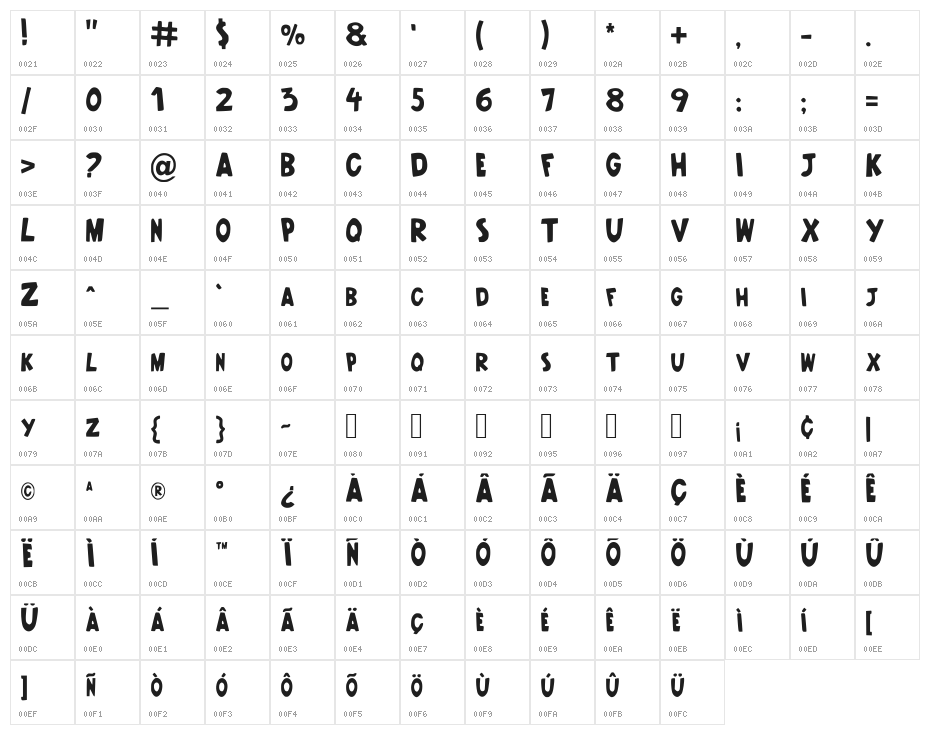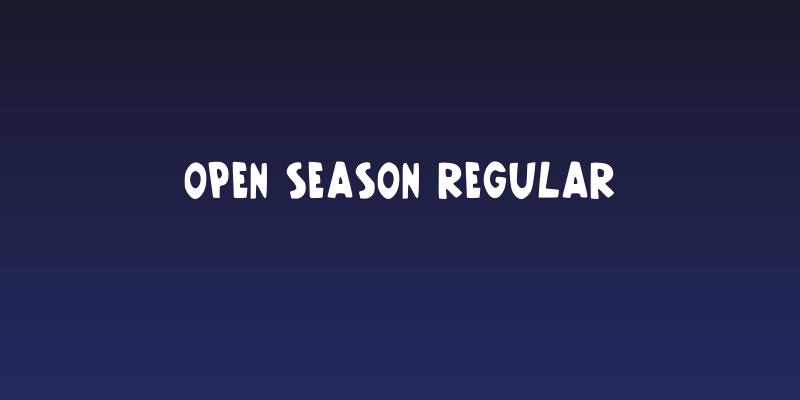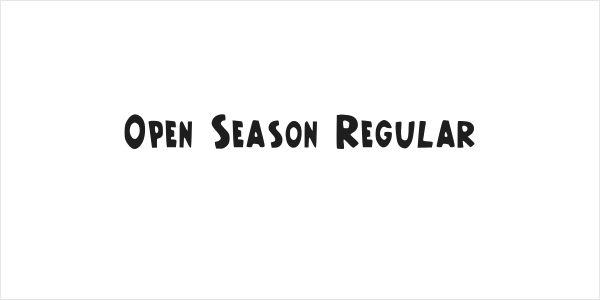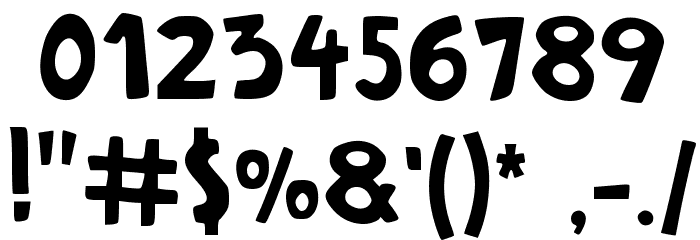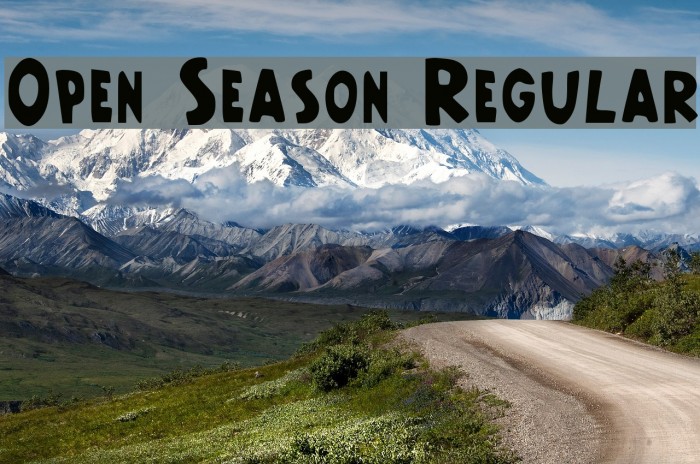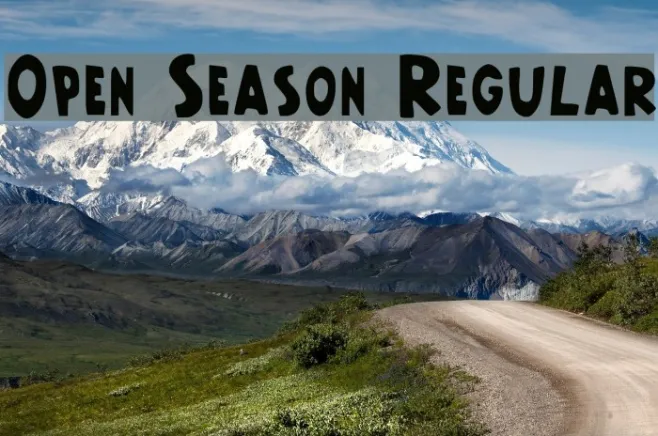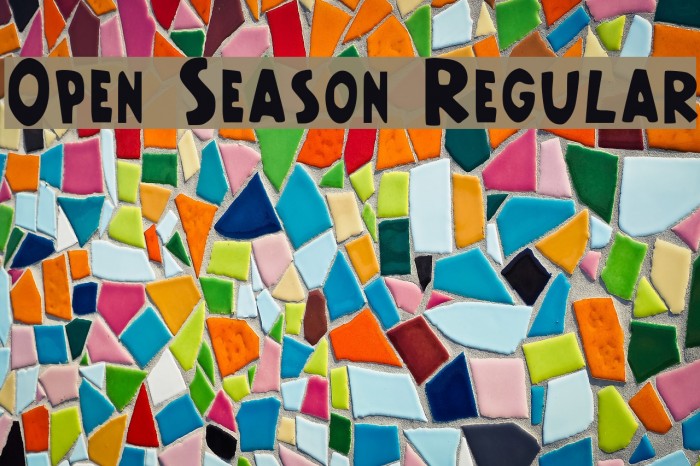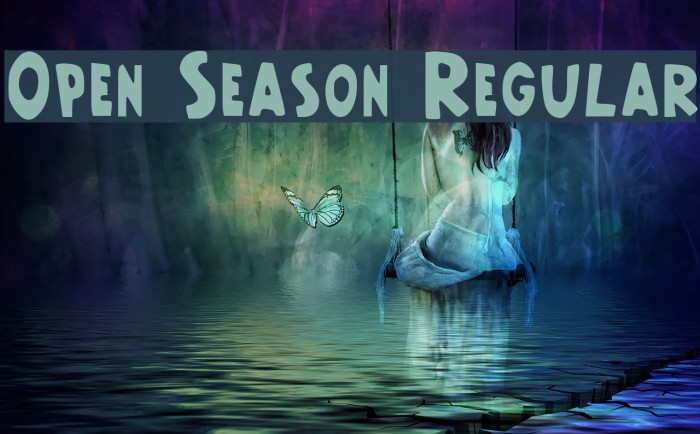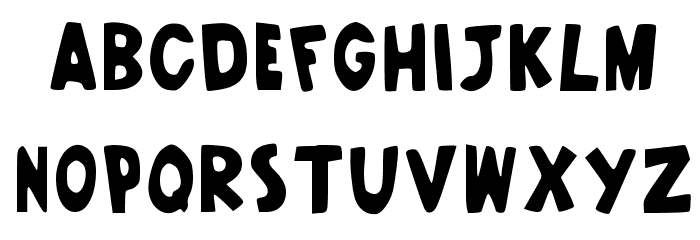
Open Season Regular Font
Open Season Regular Description
This playful and bold font features a hand-drawn aesthetic with irregular, slightly wavy lines that give it a lively and informal appearance. The characters are thick and rounded, contributing to a friendly and approachable style. The uppercase and lowercase letters maintain a consistent weight, while the numbers and special characters are designed to match the whimsical nature of the alphabet. The font's unique personality makes it suitable for projects that require a fun and engaging visual impact.
| Proposed Projects | Ideal for children's books, playful branding, event posters, and creative social media graphics. |